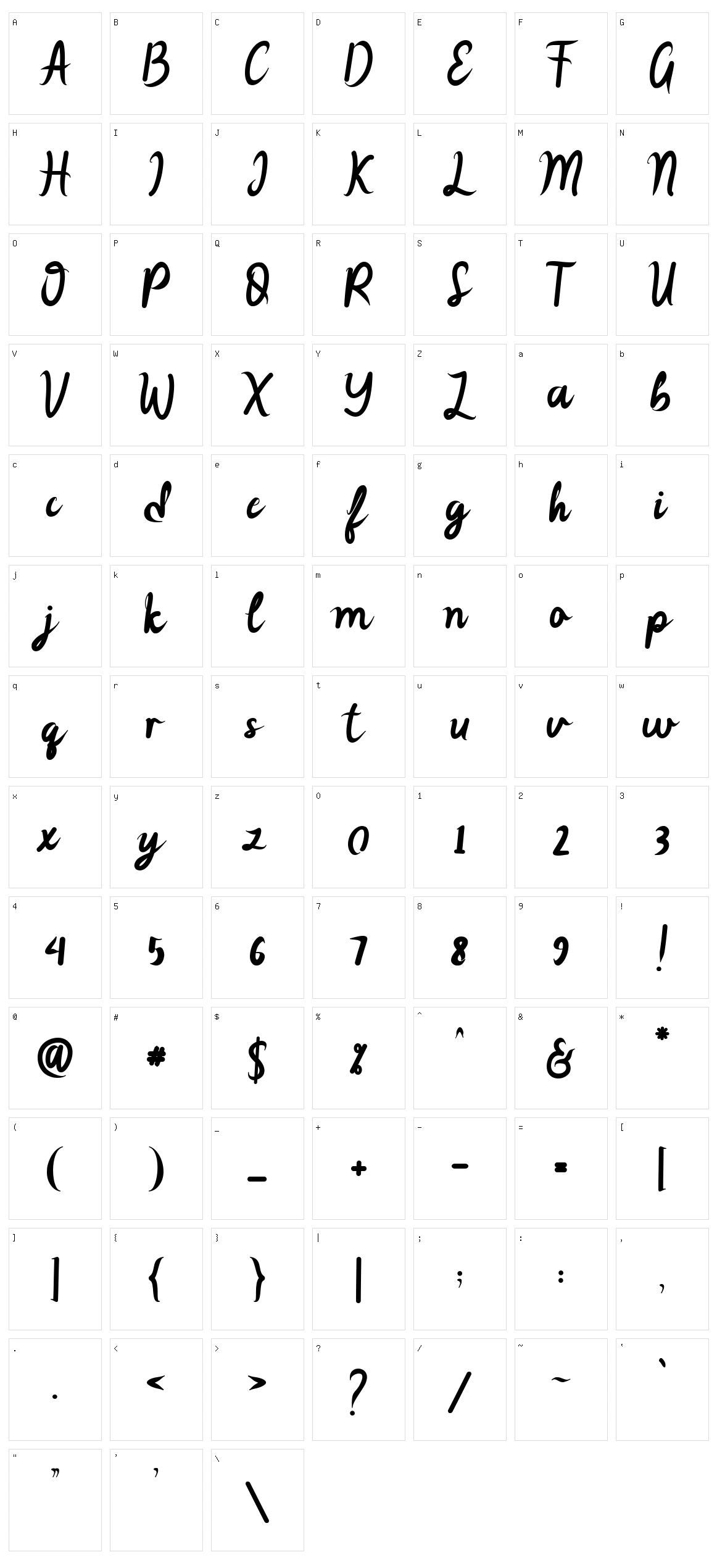
The free font The Brilliant is carefully designed by Yoga Letter, showcasing a thoughtful balance of creativity and usability and falls under the Script font style. When you download the ZIP file, it contains only 104.52 KB of font files, making it lightweight and quick to download. Please review the license details below to understand permitted usage and distribution rights. If license information is not available, we recommend using this font for personal projects only or contacting the author directly for commercial usage permissions.